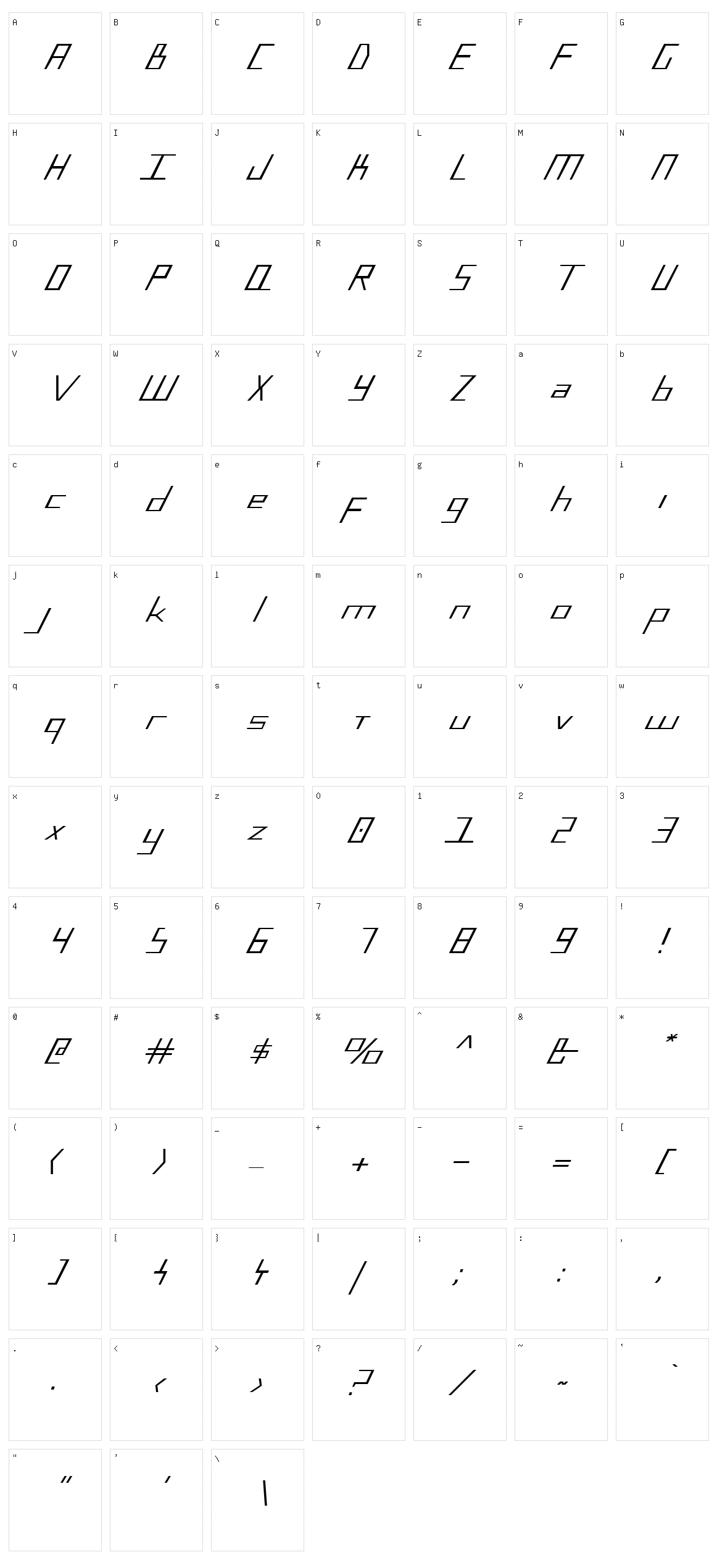
Blue July
This font comes with the following 9 versions: Regular, Condensed, Expanded, Bold, Bold COndensed, Bold Expanded, ExtraBold, 3D and Academy.